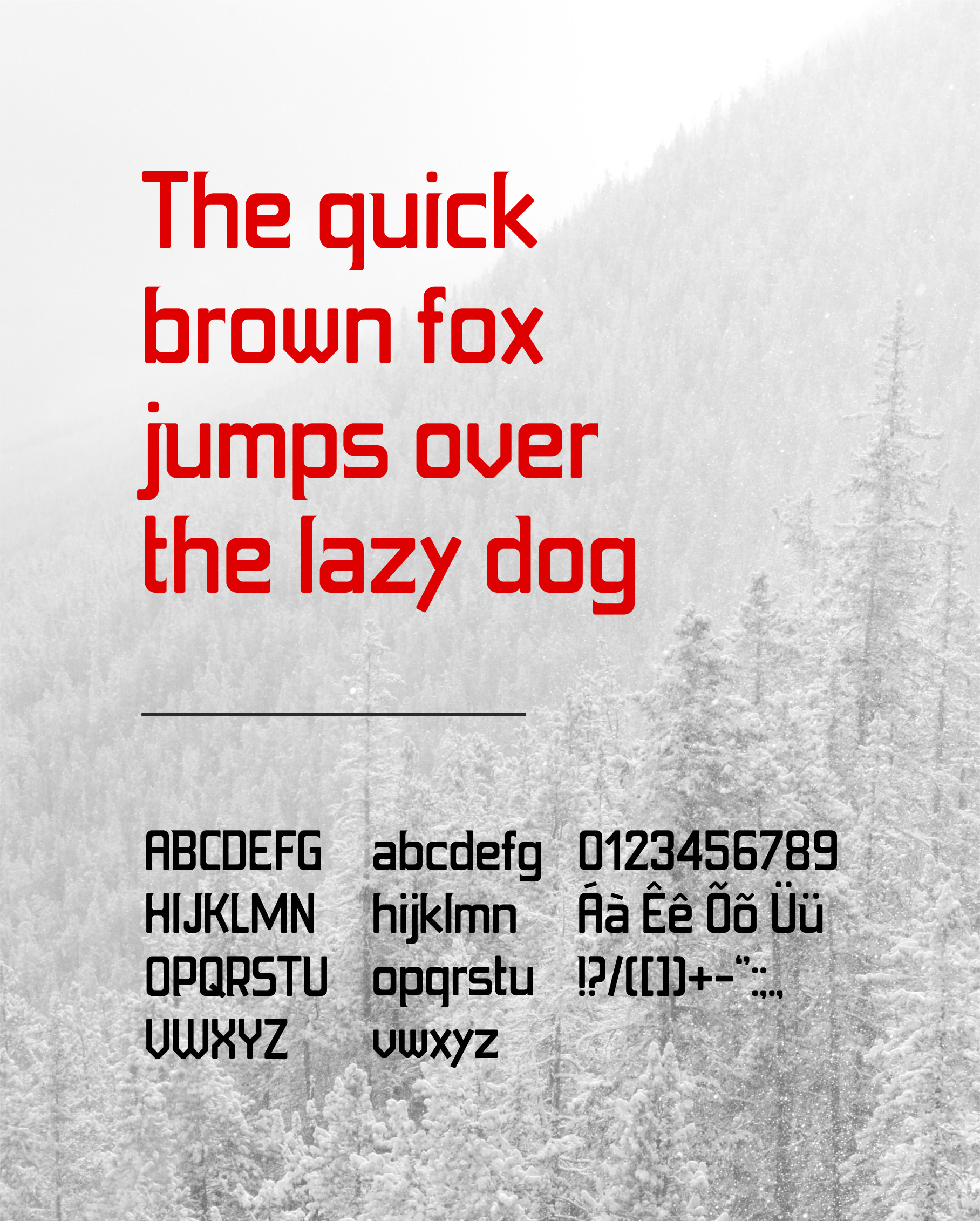
Foxy is a new free font that was recently created and released by Inari Fraton. Foxy has a sans serif style with a touch of serif in it, close to a slab serif font, a slightly condensed form and a lot of personality. It’s available in one weight only, it comes with basic english alphabet characters, numbers, punctuation marks and a couple of accents. This can be used in basically any type of projects, working great with branding and logo design, titles and headlines and any other circumstances you might find you need it.